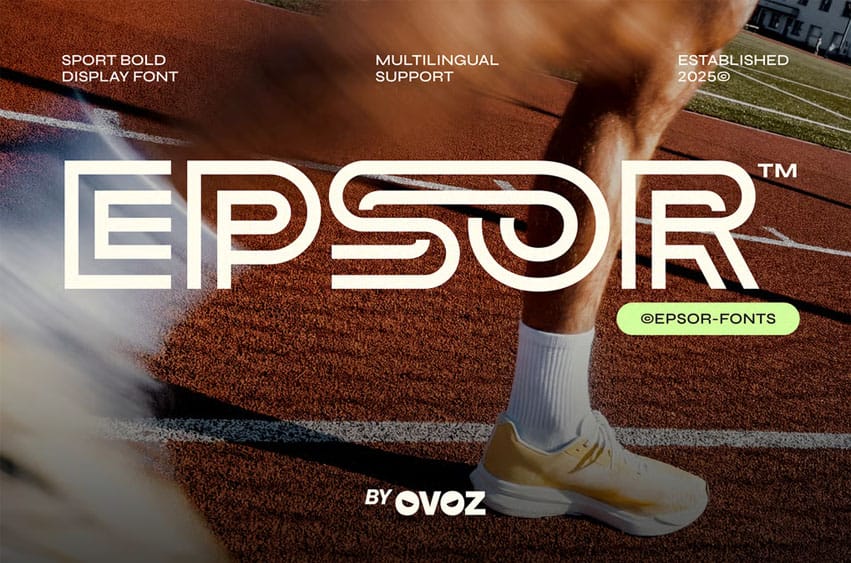
Epsor Sports Font is a sport-bold display font crafted with a dynamic line aesthetic that captures motion, speed, and modern athletic energy. Its clean outlines and futuristic flow make it an excellent fit for sports branding, racing visuals, gym promotions, basketball posters, baseball identities, football graphics, and soccer-themed layouts. Designed for versatile performance, EPSOR elevates fitness campaigns, golf events, sporty advertisements, and bold sport concepts that need clarity, power, and a high-tech competitive edge.
Inspired by racing momentum and structured geometry, EPSOR brings a fresh athletic perspective that blends precision with modern dynamism. Its sharp construction and fluid rhythm make it ideal for race events, hockey tournament visuals, fight-night promotions, and competitive sports branding. Whether you’re building fast-paced race graphics or creating sleek athletic identities, EPSOR ensures every message stands out with confidence, motion, and unmistakable sporty attitude.
Bold Moves, Strong Letters — where dynamic sport energy meets modern precision to create a fearless competitive identity.